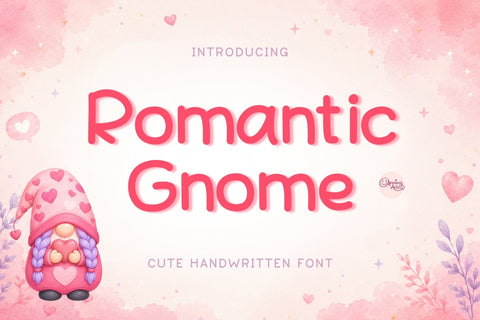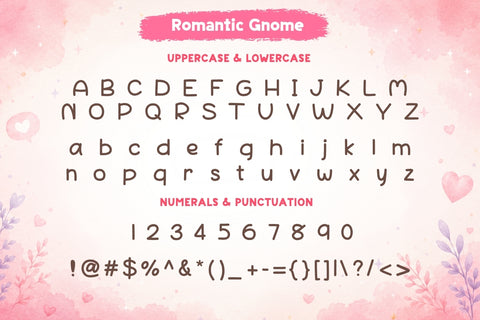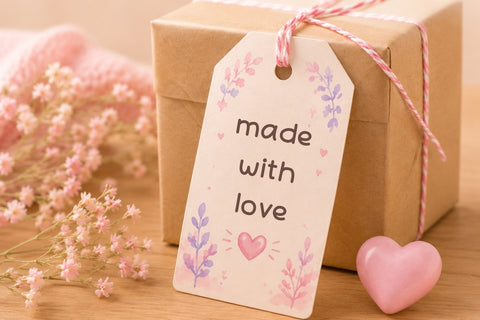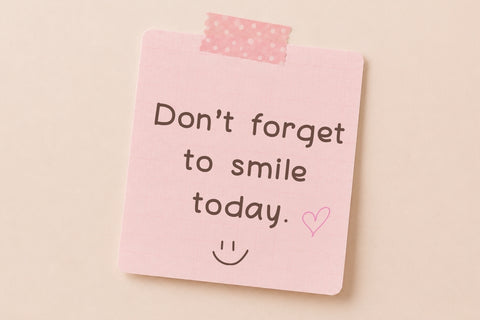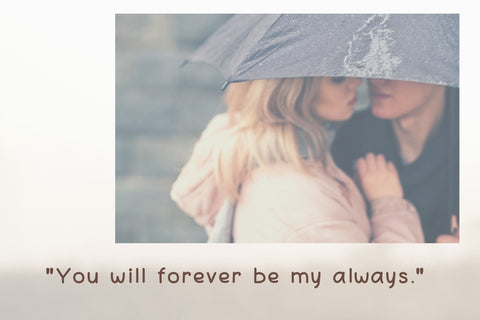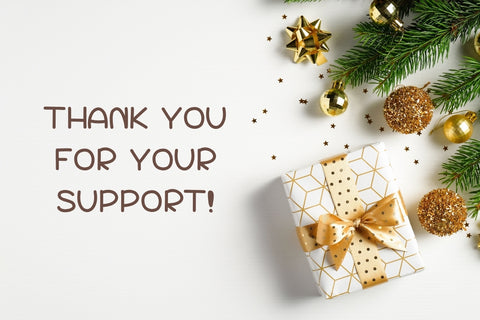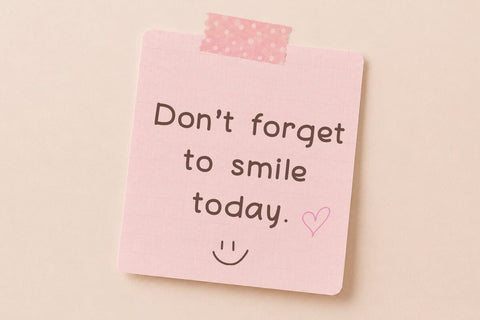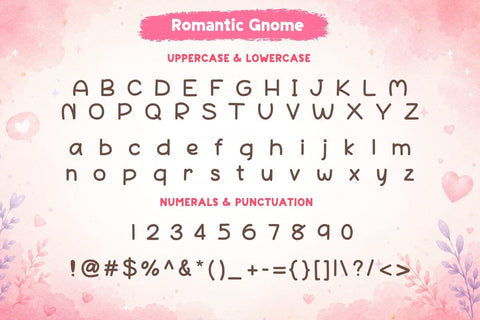
Romantic Gnome - Valentine Handwritten Font
Romantic Gnome is a sweet handwritten font designed with rounded letters and a soft playful style. Its clean and friendly look makes it perfect for creating cute romantic designs, handmade gifts, and craft projects.
This font includes uppercase, lowercase, numbers, and punctuation. It is great for Cricut, Silhouette, Valentine crafts, gift tags, stickers, greeting cards, mugs, shirts, tote bags, planners, journals, printable designs, and small business packaging.